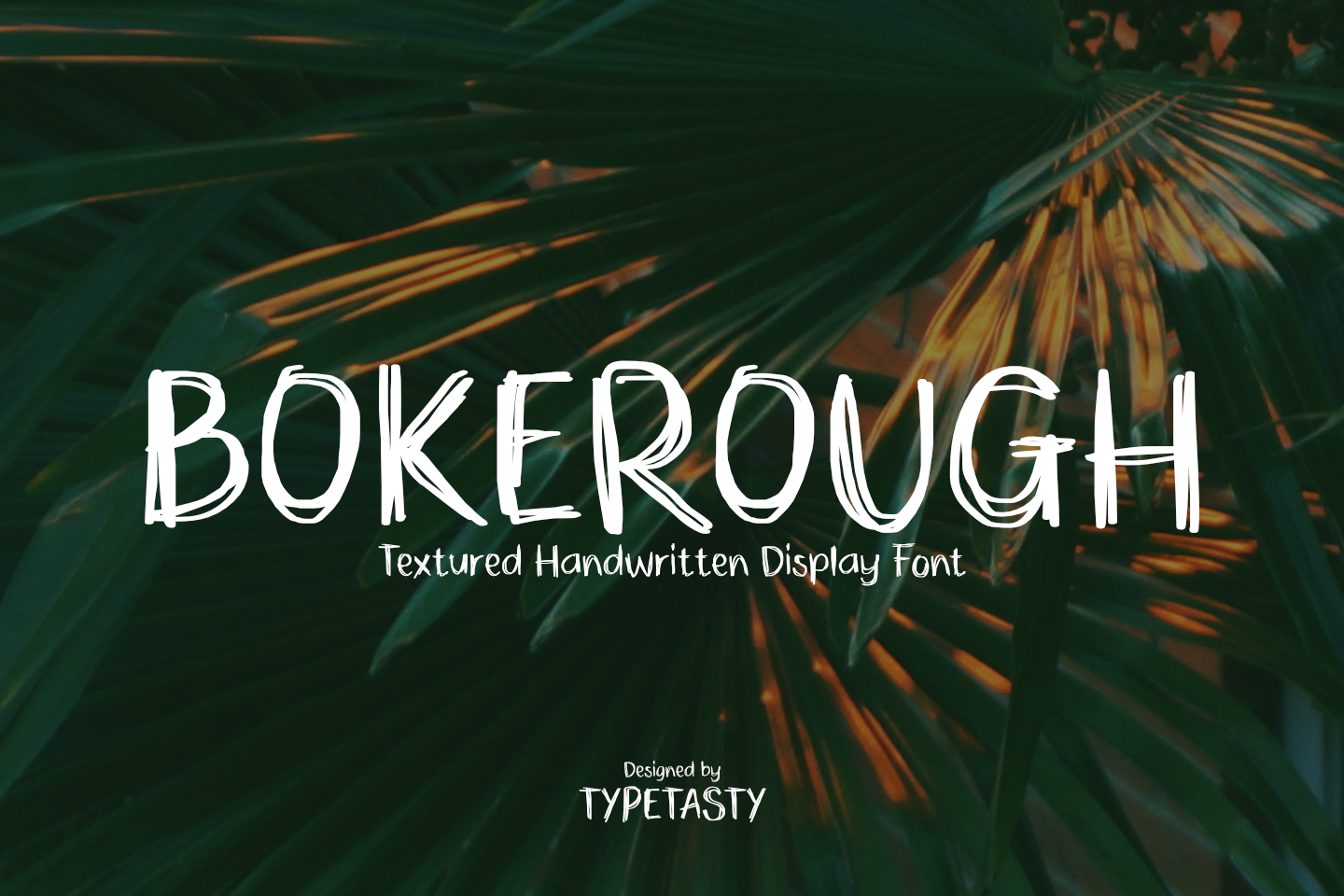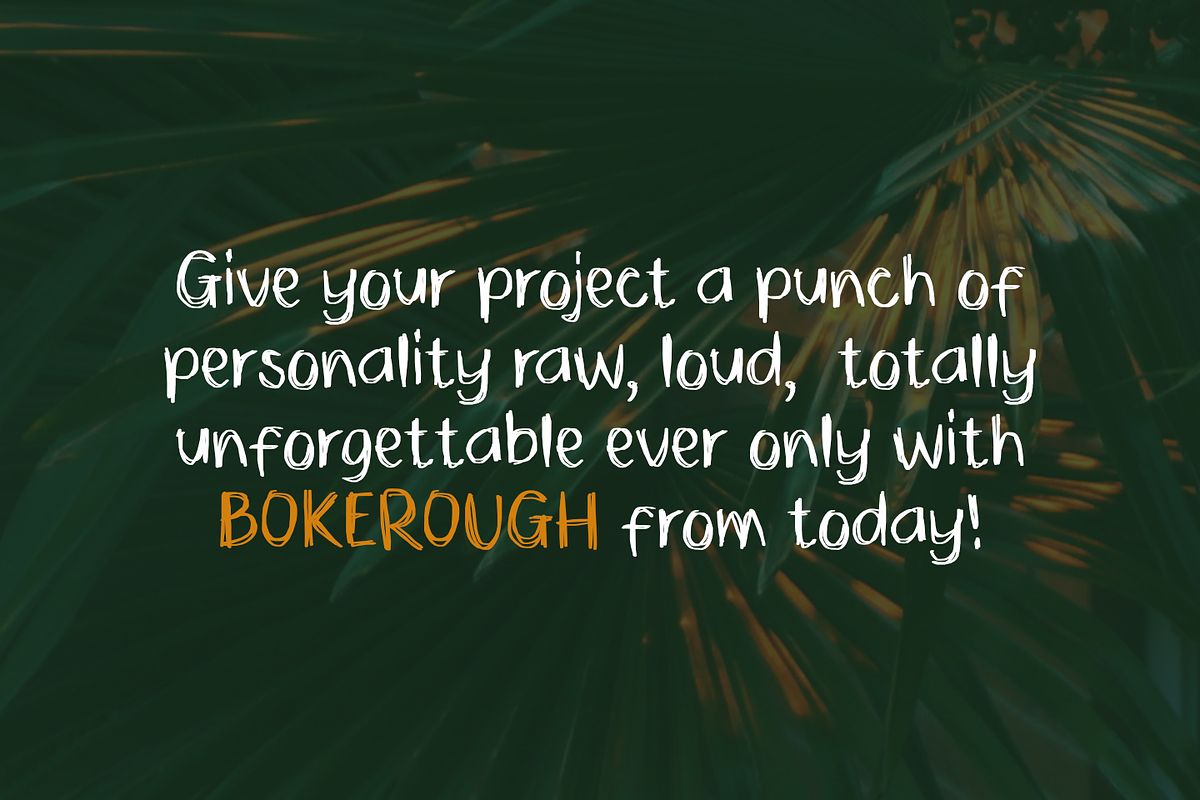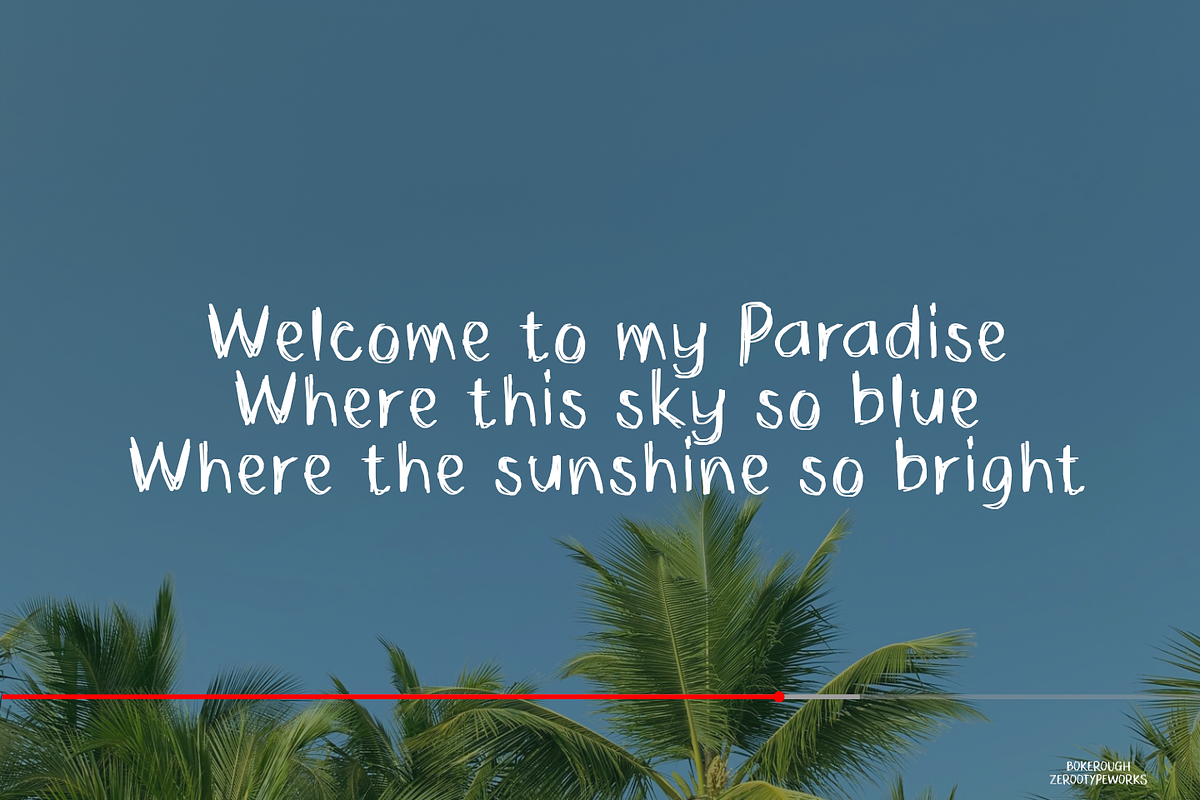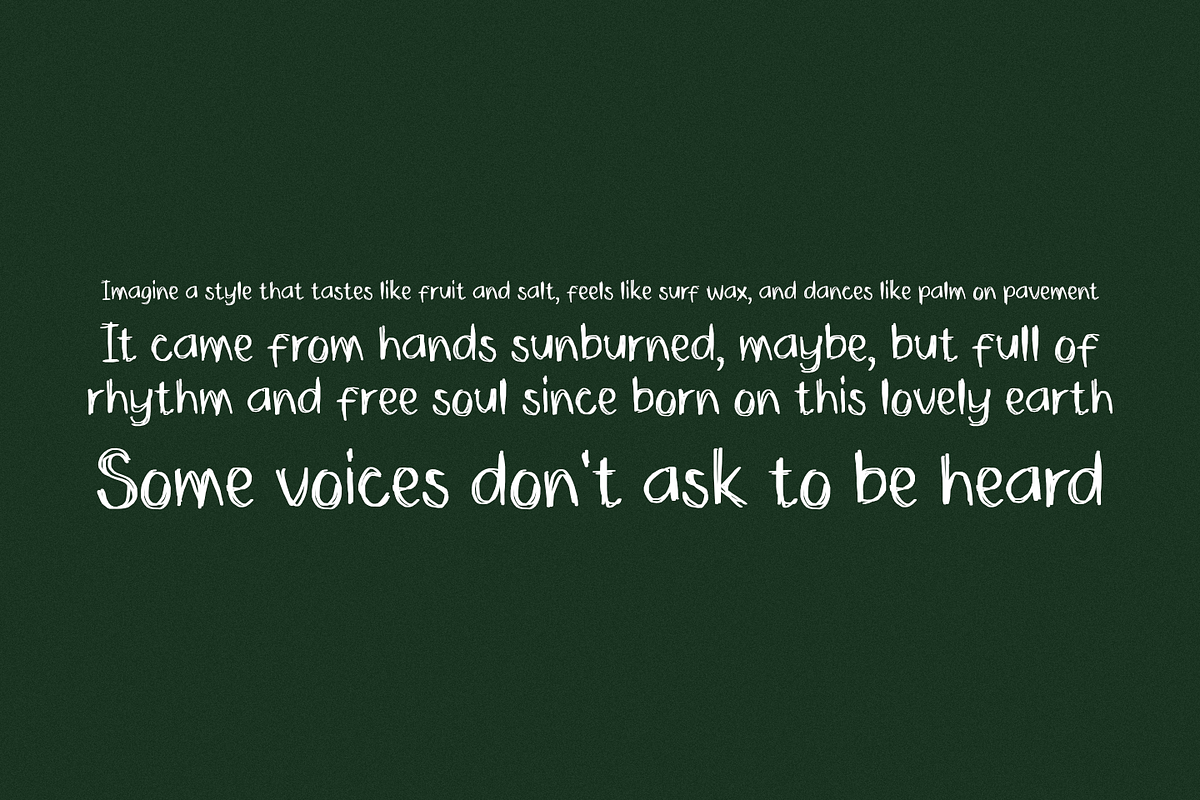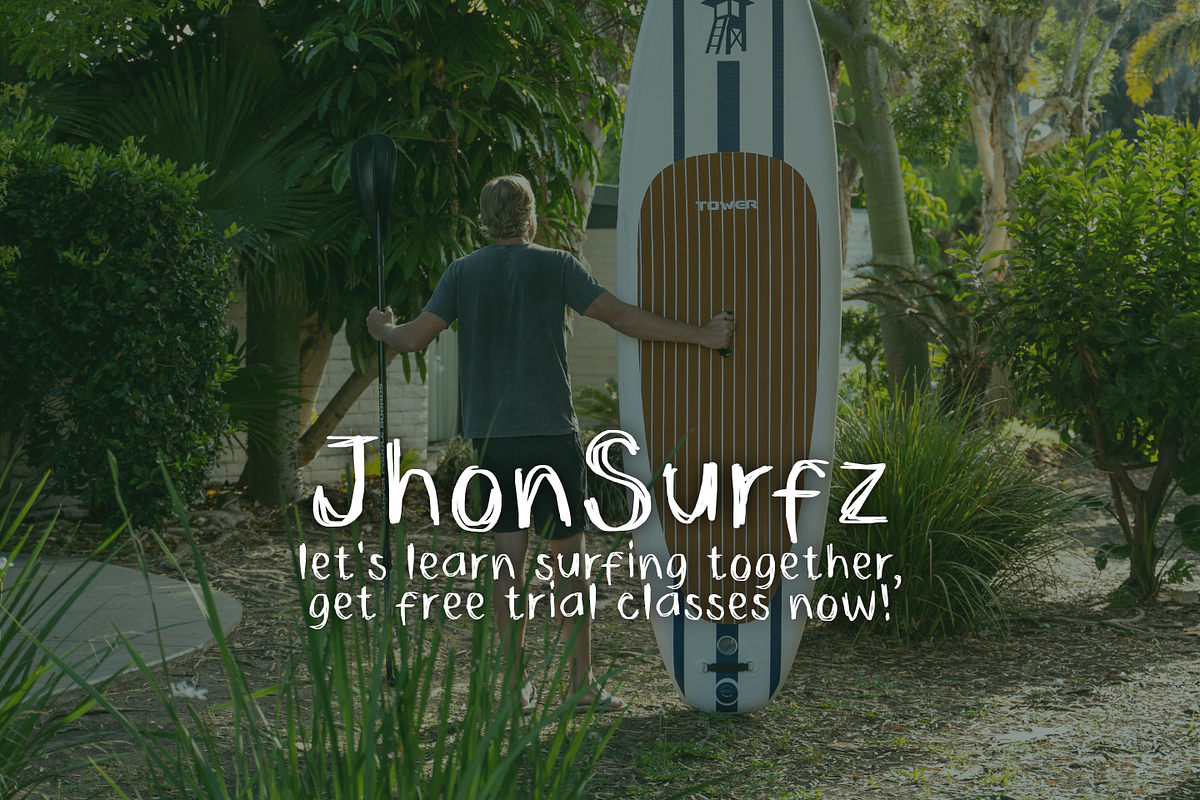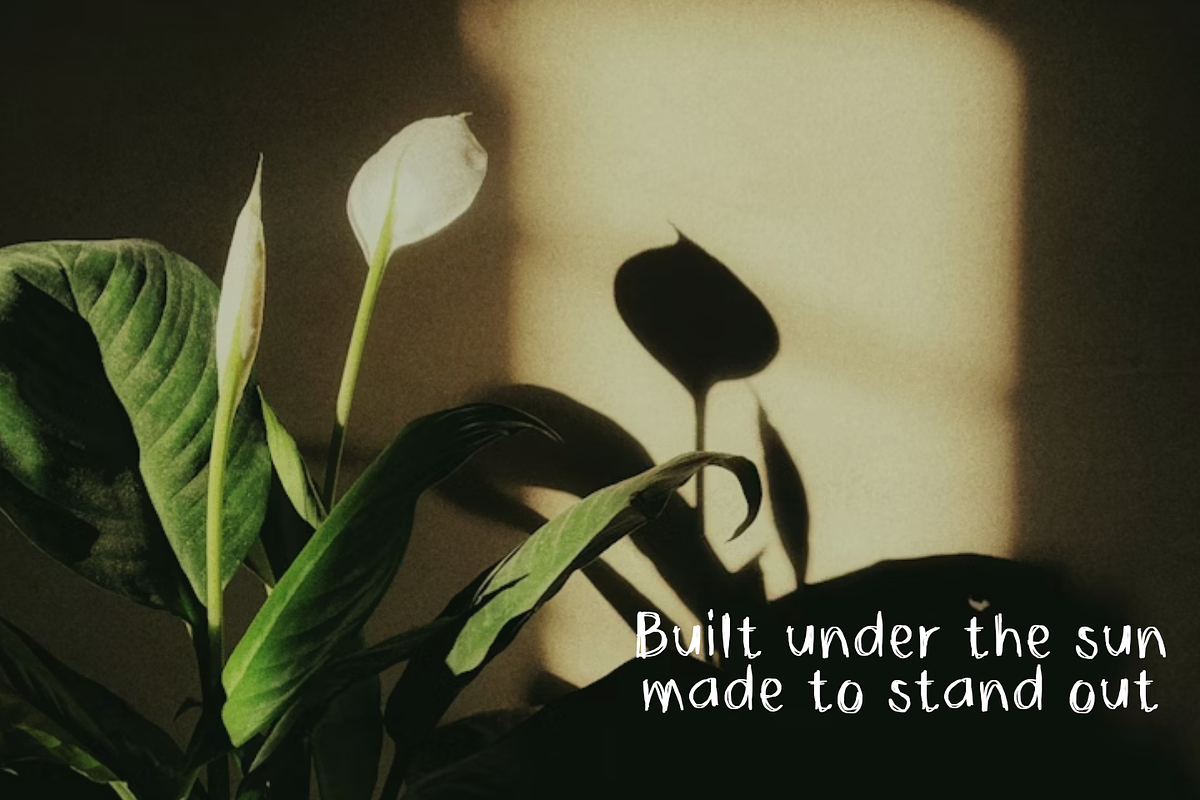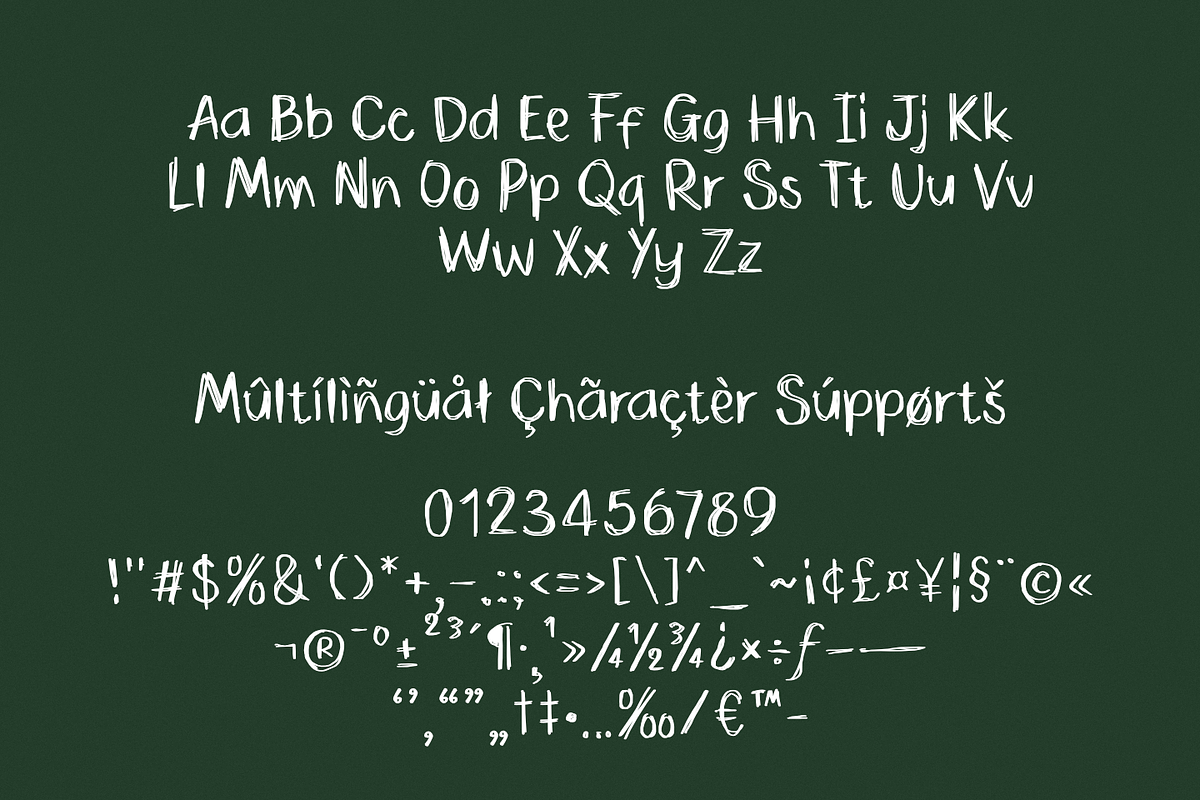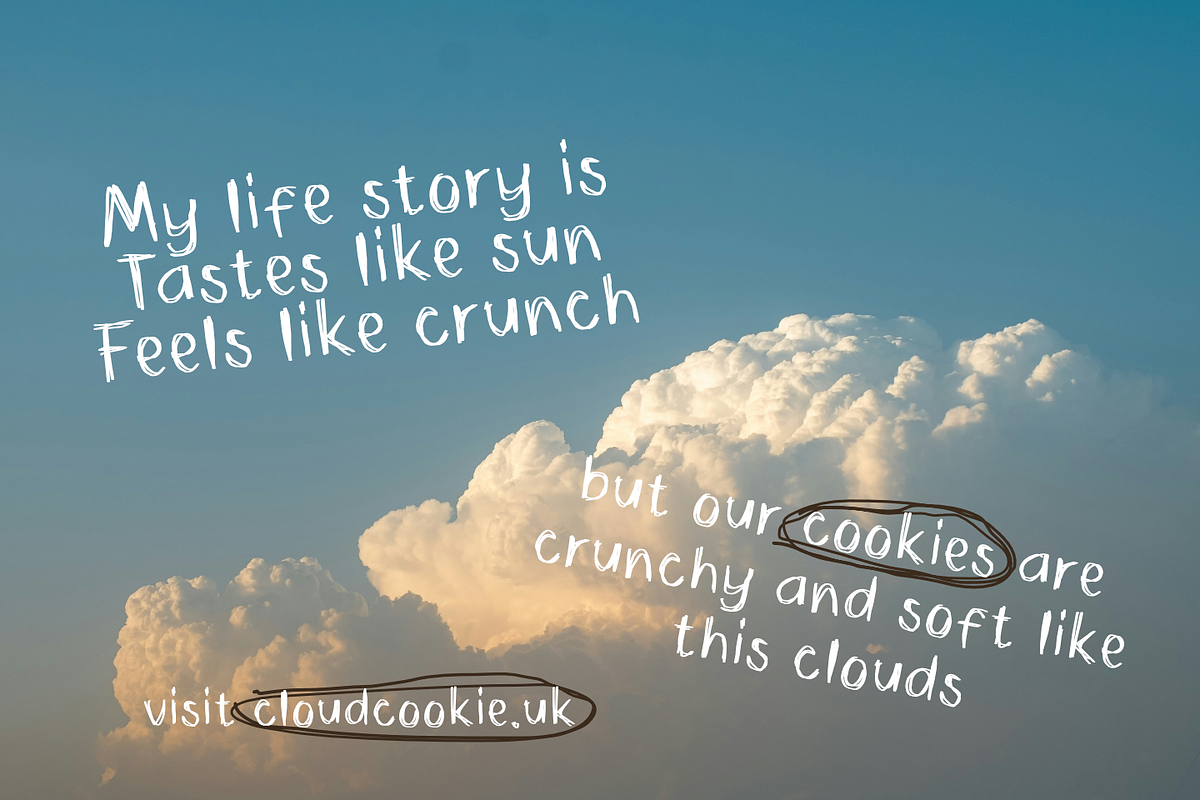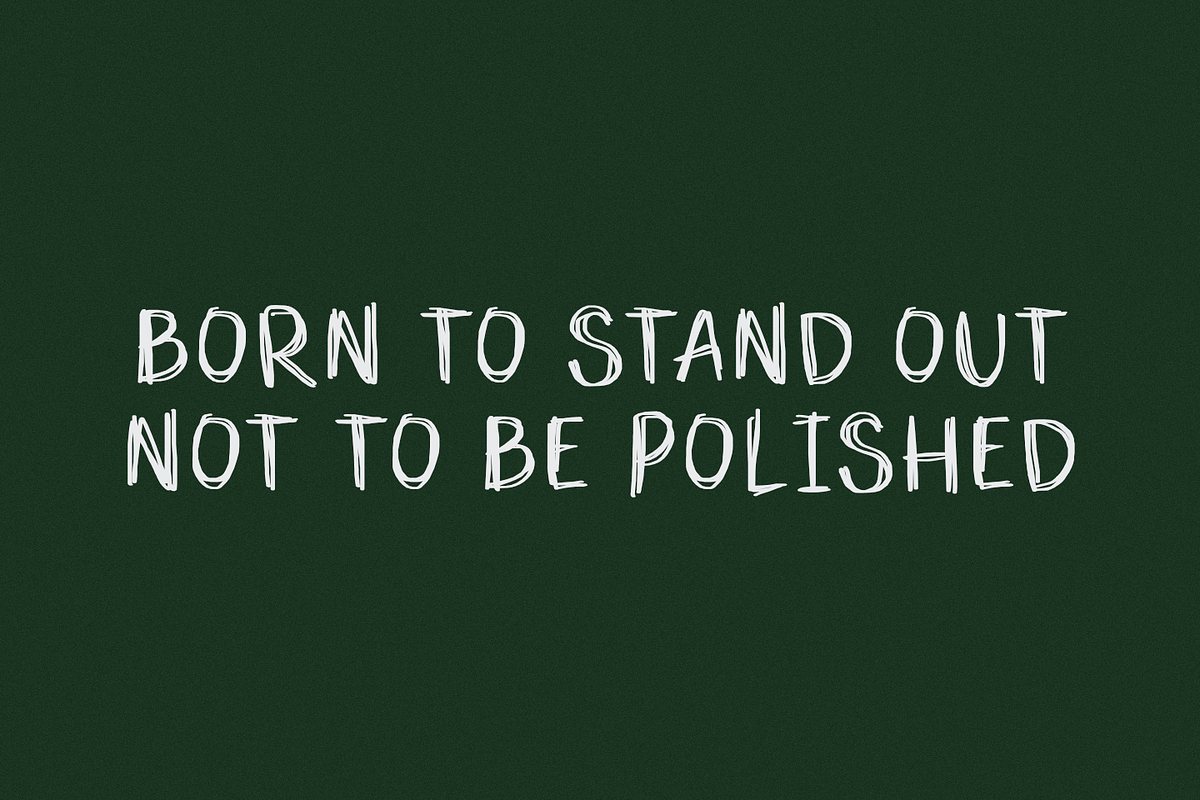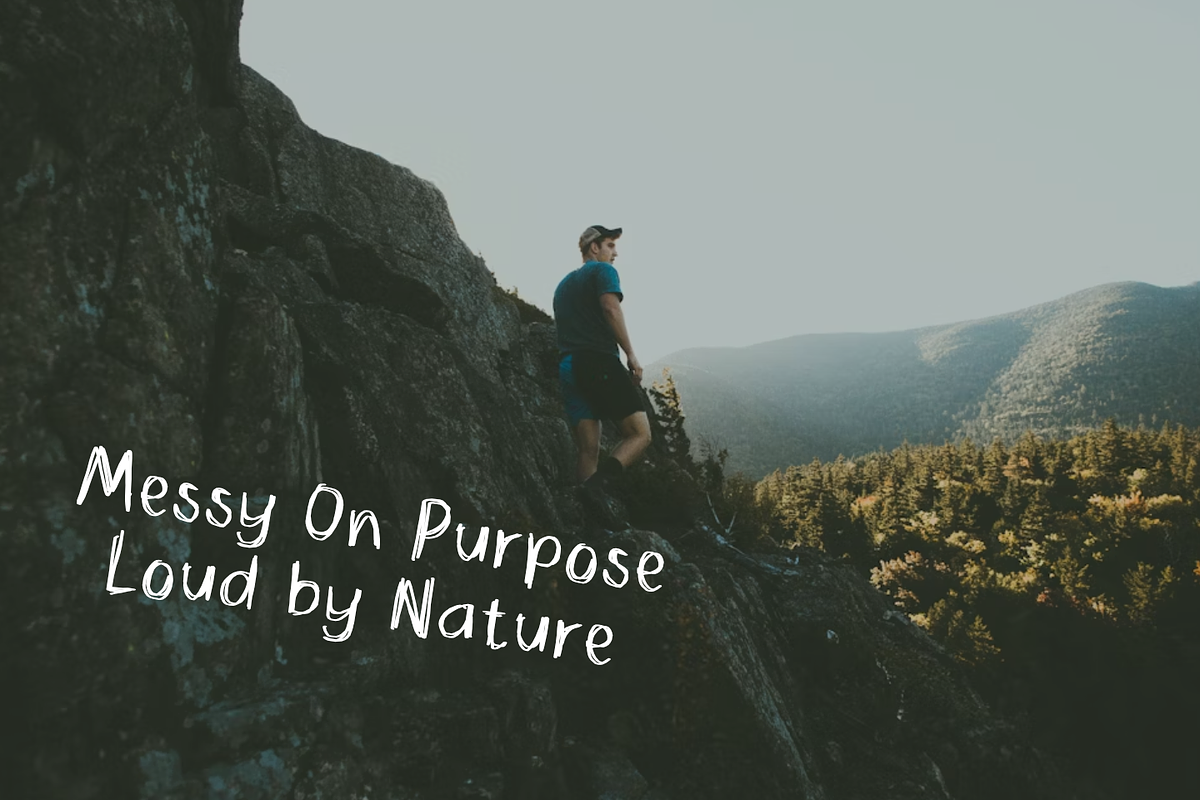
Bokerough – Rough Handwritten Font
Bokerough – Textured Handwritten Display Font
BOKEROUGH is a bold and scratchy handwritten display font inspired by tropical heat and untamed creativity. With rough brush-style strokes and imperfect edges, it adds a raw, handmade feel to any project perfect for food packaging, kids’ snacks, beachwear, travel content, or Instagram quotes that need to stand out. Whether you’re designing summer event posters or branding a snack product with flavor and flair, BOKEROUGH delivers wild character with just the right amount of chaos.
Bokerough Great For:
- Beach bar signage & surfboard branding
- Handwritten food packaging (chips, juice, popsicles!)
- Summer travel Instagram quotes
- Boho t-shirt designs
- Greeting cards with attitude
Bokerough Great For:
- Summer designs brands
- Quote / Journaling
- Nature / Outdoor design theme
- Summer Party invitations
- YouTube thumbnails
- Instagram graphics